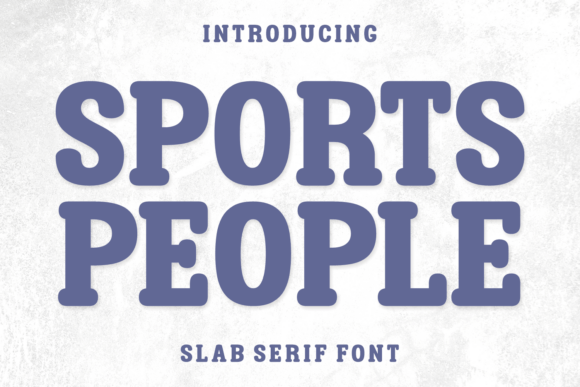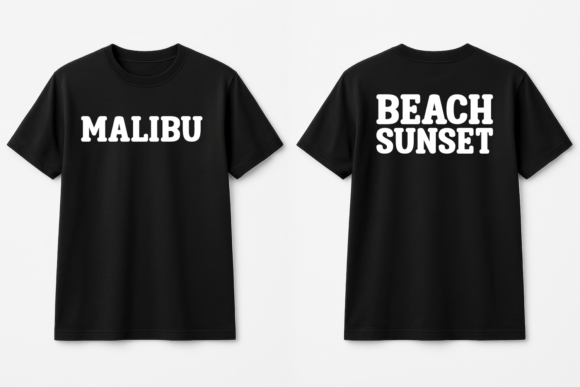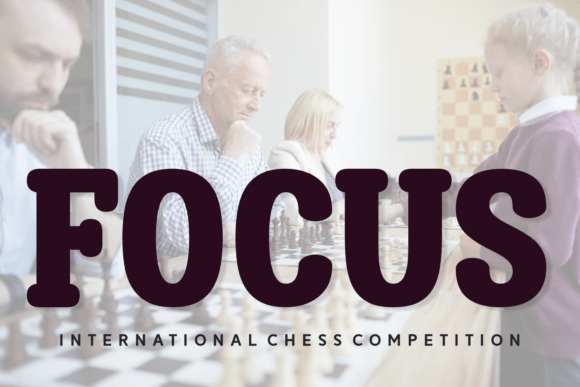
Sports People Font
Introducing “Sports People”, the irresistible amalgamation of cute, funny, and comical typography that never fails to charm! This entertaining cartoon font sets a playful tone, making it an absolute winner for children’s designs and amusement themes. The chunkiness of this fat font adds volume to every word, while the familiar feel of sticker and quote fonts makes it perfect for designs that seek to prompt instant recognition.